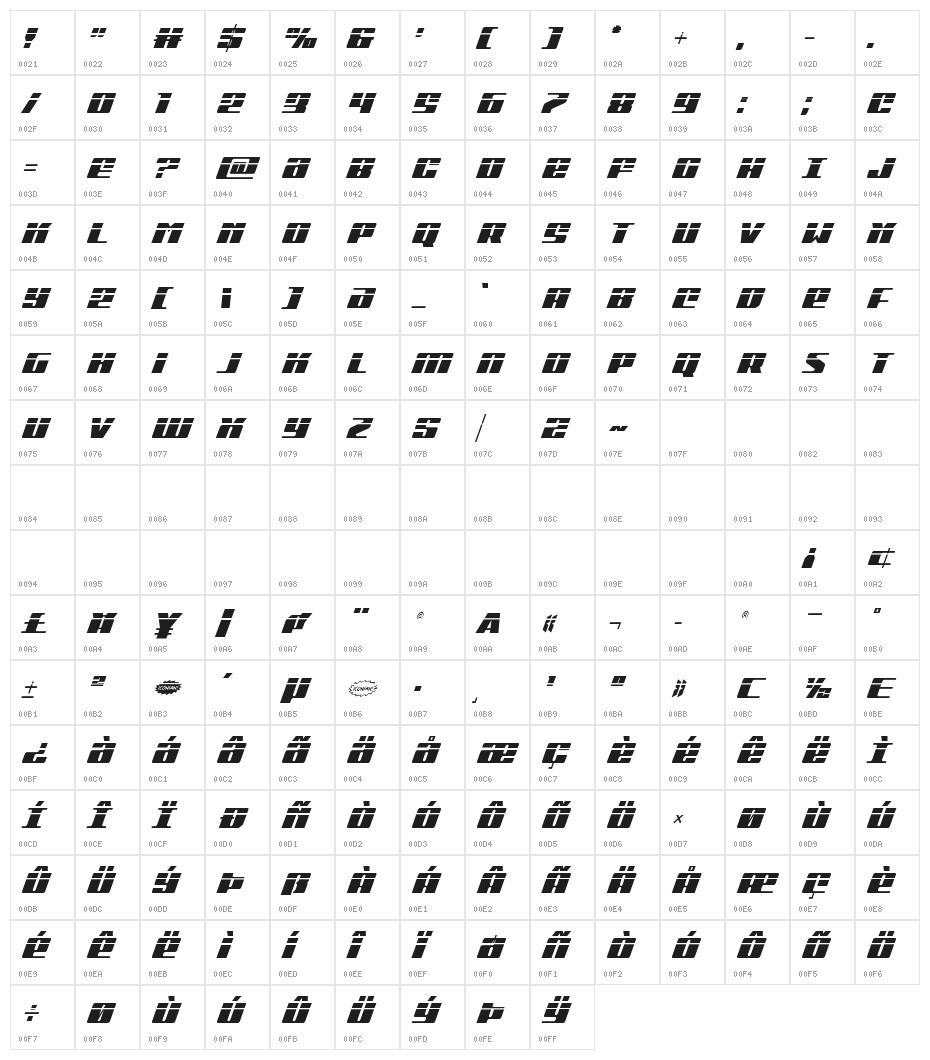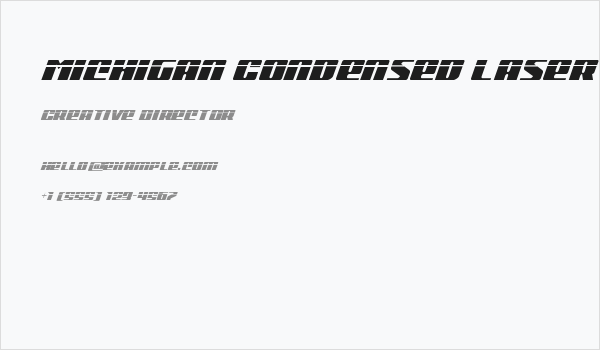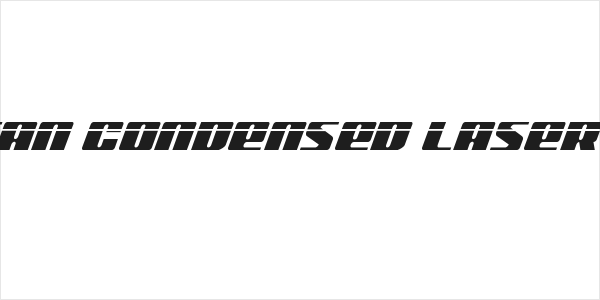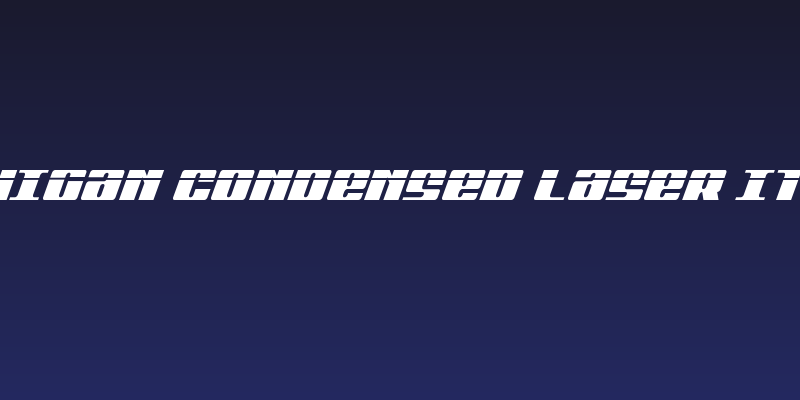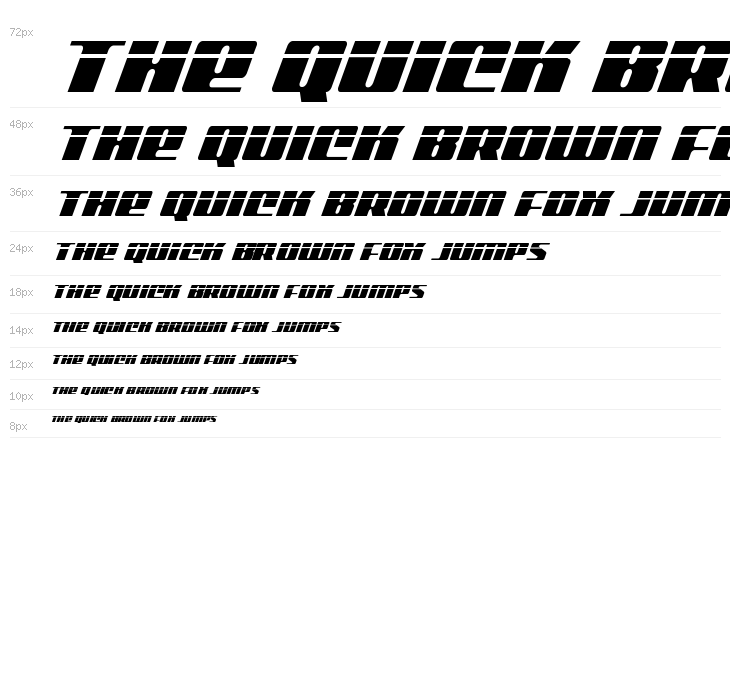
Michigan Condensed Laser Italic Font
Michigan Condensed Laser Italic Description
This font features a bold and dynamic style with a condensed and italicized form. The characters are sharply angled, giving a futuristic and sleek appearance. The uppercase and lowercase letters maintain a consistent height, enhancing readability while adding a modern edge. The numerals and special characters follow the same design principles, ensuring uniformity across all elements. The font's geometric shapes and sharp edges make it suitable for attention-grabbing designs.
| Proposed Projects | Ideal for technology branding, sports team logos, dynamic posters, and modern web design. |